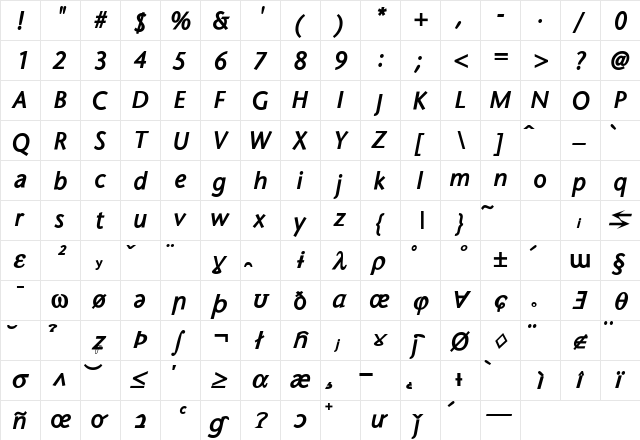
GoianaSSK BoldItalic Font Preview
GoianaSSK BoldItalic
Design Context for GoianaSSK Typeface
GoianaSSK is a composed and adaptable typeface that performs quietly and consistently across a wide range of design contexts. The slanted form adds forward momentum and visual energy. Its bold stroke weight gives it real presence on the page.